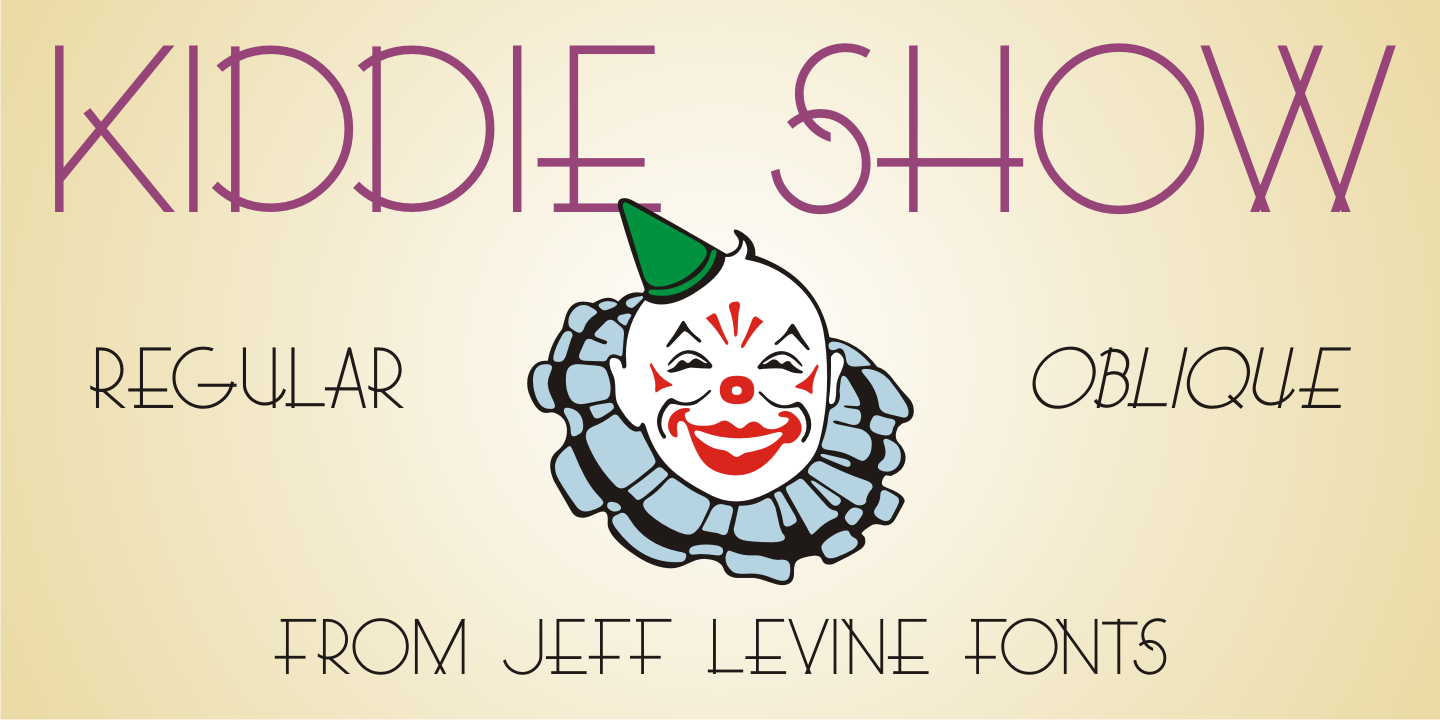
Kiddie Show JNL is a art deco font family. This typeface has two styles and was published by Jeff Levine Fonts.
The design for Kiddie Show JNL is based on the hand lettering for a piece of sheet music from 1946 entitled “Wee Marionettes”. While basically an Art Deco-flavored monoline typeface, it contains characters with intersecting lines and assembled parts that give it an eccentric, playful look.
Available in both regular and oblique versions to add a bit of playfulness to your next project.